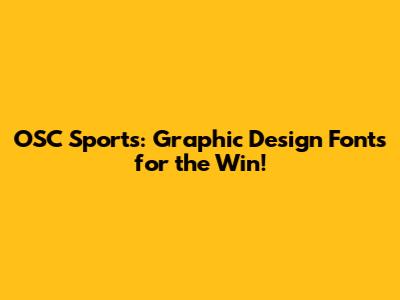
Let's dive into the exciting world where sports meet design, specifically focusing on graphic design fonts that can make your sports-related projects truly stand out. Whether you're creating branding for a sports team, designing posters for an upcoming game, or working on a sports-themed website, the right font can make all the difference. In this article, we'll explore what makes a font suitable for sports-related designs, highlight some top font choices, and provide tips on how to effectively use these fonts to achieve your desired impact. So, gear up and get ready to discover the perfect fonts to elevate your sports graphic designs!
What Makes a Font Suitable for Sports-Related Designs?
When it comes to sports graphic design fonts, not just any typeface will do. There are specific qualities that make a font a great fit for the dynamic and energetic world of sports. Consider the following factors to ensure your font choice aligns with the spirit of the game.
Boldness and Impact
Sports designs often need to convey strength, power, and excitement. Therefore, fonts with a bold and impactful presence are generally preferred. Think about fonts that have thick strokes and a strong visual weight. These types of fonts immediately grab attention and communicate the intensity associated with sports. For example, a heavy sans-serif font can be incredibly effective for headlines and titles, instantly conveying a sense of authority and energy. Imagine the roar of the crowd captured in the very letters you use – that’s the kind of impact you should aim for.
Readability
While a font needs to be attention-grabbing, it also needs to be easily readable. This is particularly important for designs that include a lot of text, such as team rosters, event schedules, or promotional materials. Opt for fonts that maintain clarity even at smaller sizes. Avoid overly decorative or intricate fonts that can become illegible when scaled down. A clean, legible font ensures that your message is effectively communicated to your audience, whether they're viewing it on a large banner or a mobile screen.
Energy and Dynamism
Sports are all about action, movement, and adrenaline. Choose fonts that reflect this energy and dynamism. Look for fonts with slanted or italicized versions, which can suggest motion and speed. Fonts with sharp angles or unique letterforms can also add a sense of excitement and visual interest. Think about how the font complements the overall design and enhances the feeling of movement. A font that embodies energy can help capture the thrill of the game and draw viewers into the action.
Versatility
A versatile font is one that can be used in a variety of contexts and still maintain its effectiveness. In sports design, you might need a font that works well for headlines, body text, logos, and even numerals on jerseys. Select a font family that offers multiple weights and styles, such as regular, bold, italic, and condensed versions. This allows you to create a cohesive look across all your design elements while still maintaining visual interest and hierarchy. A versatile font is a valuable asset that can be used in numerous projects, ensuring a consistent and professional brand identity.
Character and Personality
The font should reflect the character and personality of the sports team or event it represents. Is the team known for its grit and determination? A strong, industrial-style font might be appropriate. Is it a more youthful and energetic team? A modern, sans-serif font with a playful touch could be a better fit. Consider the overall brand identity and choose a font that complements it. The right font can reinforce the team's image and create a memorable impression on fans.
Top Font Choices for Sports Graphic Designs
Now that we've covered what to look for in a sports-related font, let's explore some top font choices that can help you achieve your design goals. These fonts have been selected for their boldness, readability, energy, and overall suitability for sports themes.
BOLD Sans-Serif Fonts
Impact
As the name suggests, Impact is a font that makes a strong statement. With its condensed letterforms and heavy weight, Impact is perfect for headlines and titles that need to grab attention. Its straightforward design ensures readability, even at a distance, making it ideal for posters, banners, and other large-format displays.
Bebas Neue
Bebas Neue is a clean and modern sans-serif font that has become a popular choice for sports designs. Its tall and narrow letterforms give it a contemporary feel, while its bold weight ensures it stands out. Bebas Neue is particularly well-suited for logos, headlines, and subheadings.
Montserrat
Montserrat is a versatile and geometric sans-serif font that offers a range of weights and styles. Its clean lines and balanced proportions make it highly readable, while its bolder weights provide the impact needed for sports-related designs. Montserrat works well for both headlines and body text, making it a reliable choice for a variety of projects.
Dynamic Slab-Serif Fonts
ChunkFive
ChunkFive is a bold slab-serif font that exudes strength and confidence. Its thick serifs and sturdy letterforms make it ideal for headlines and titles that need to convey a sense of power. ChunkFive is particularly effective for designs related to more traditional or classic sports themes.